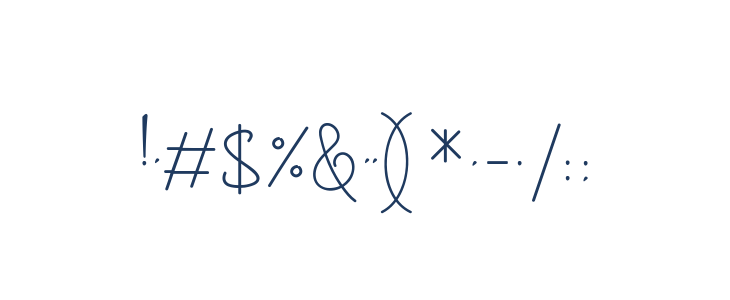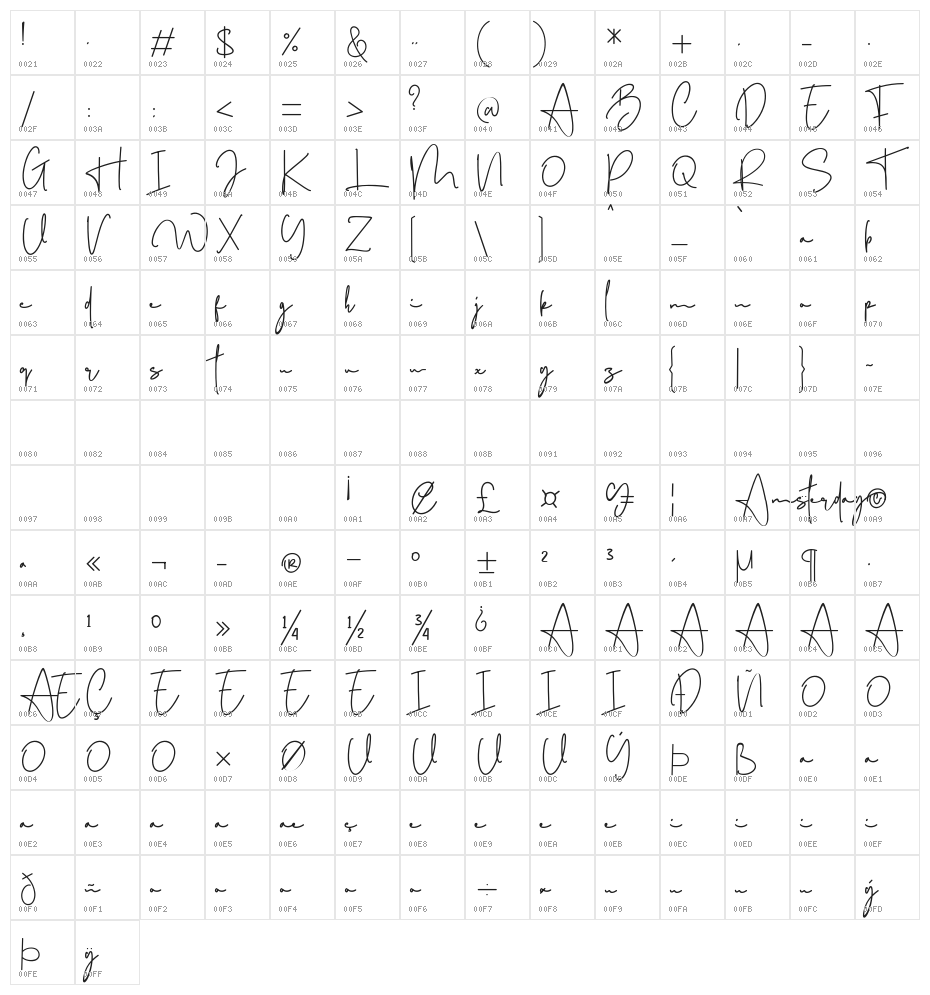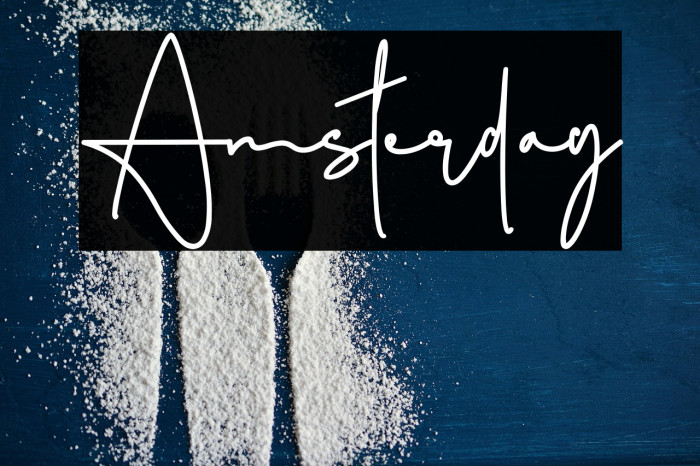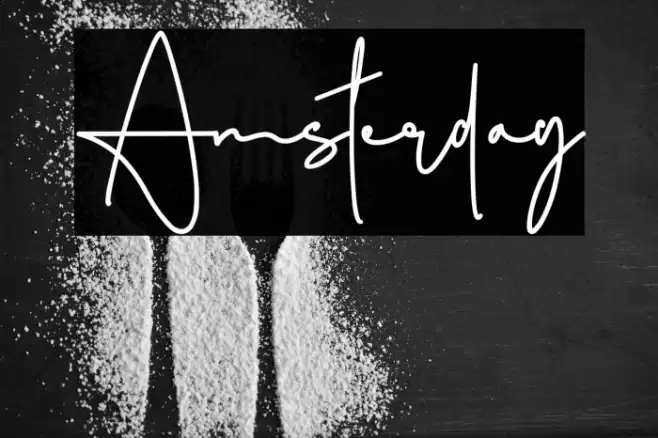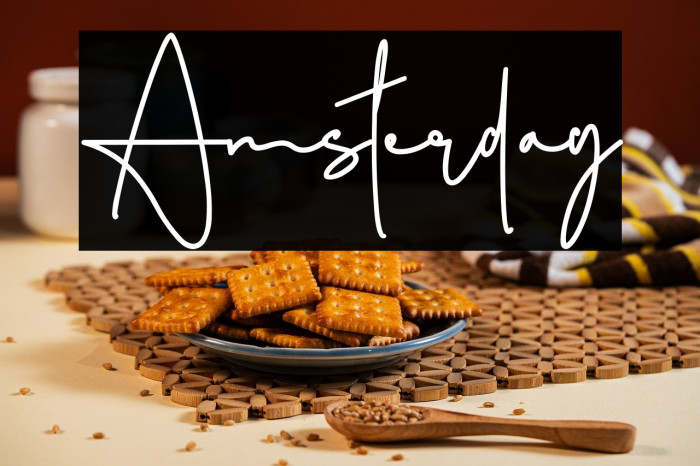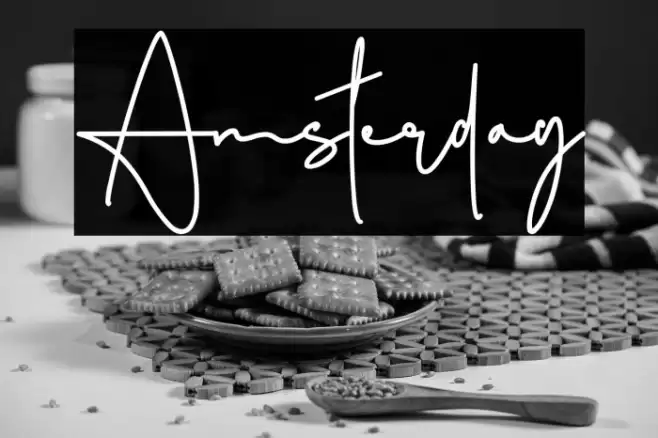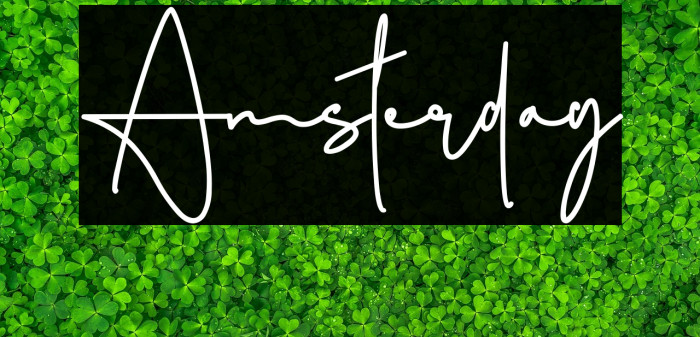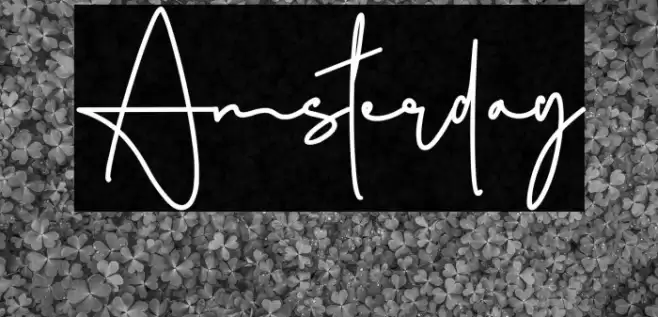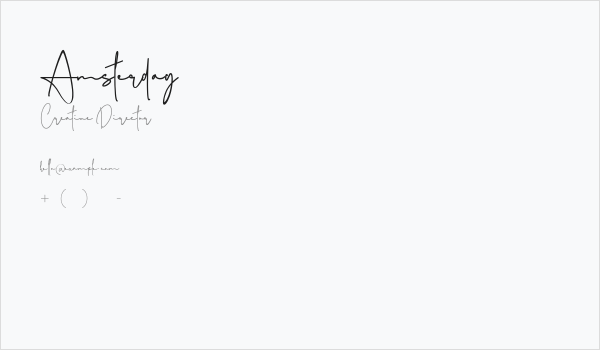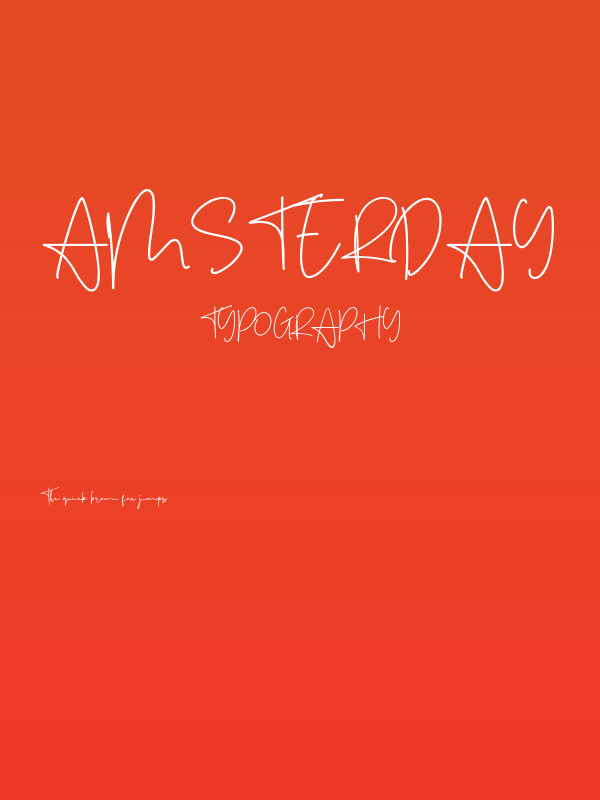
Amsterday Font
Amsterday Description
This font exudes a casual, handwritten charm with its loose and flowing script. The letters are characterized by their irregular, playful strokes, giving it a lively and spontaneous feel. The uppercase and lowercase letters maintain a consistent style, with some letters featuring unique loops and curves that add to its whimsical nature. The numerals and special characters follow the same fluid style, ensuring a cohesive look across all text. This font's informal and artistic appearance makes it ideal for projects that require a personal touch.
| Overall Style | Casual, Artistic |
| Use Case | Logos, Invitations, Personal projects |
| Proposed Projects | Ideal for greeting cards, personal branding, creative invitations, and artistic posters. |